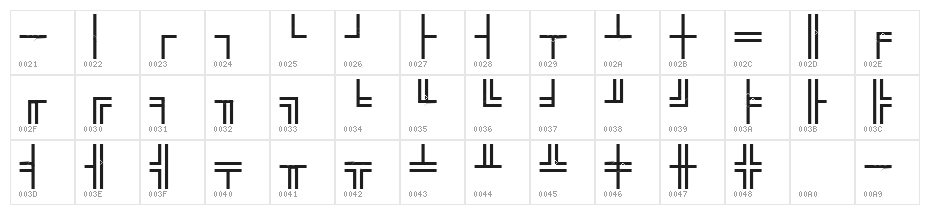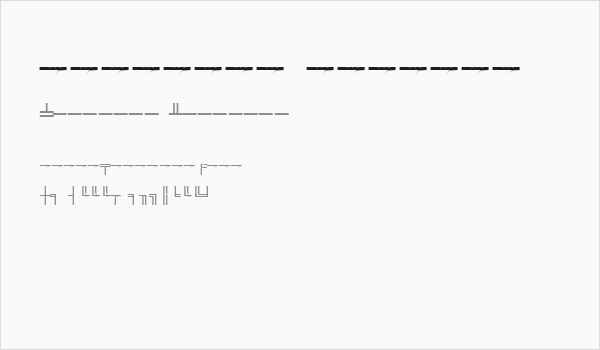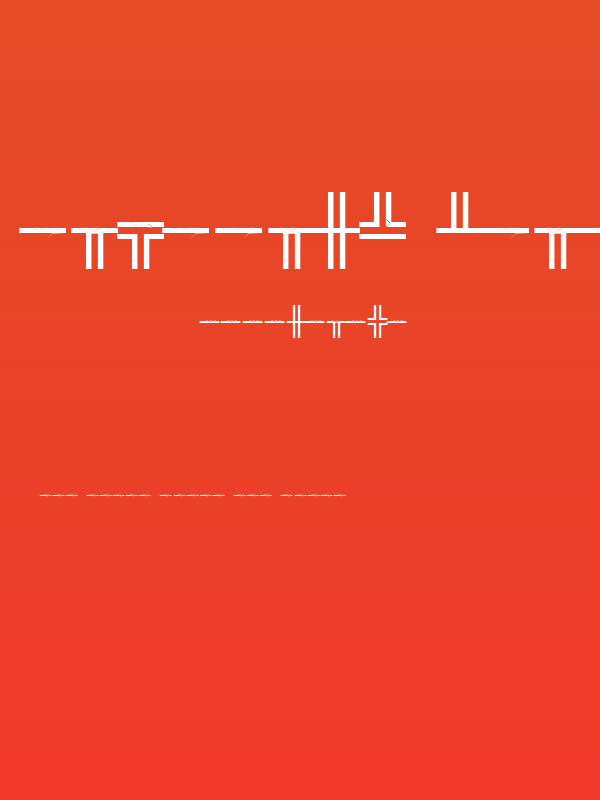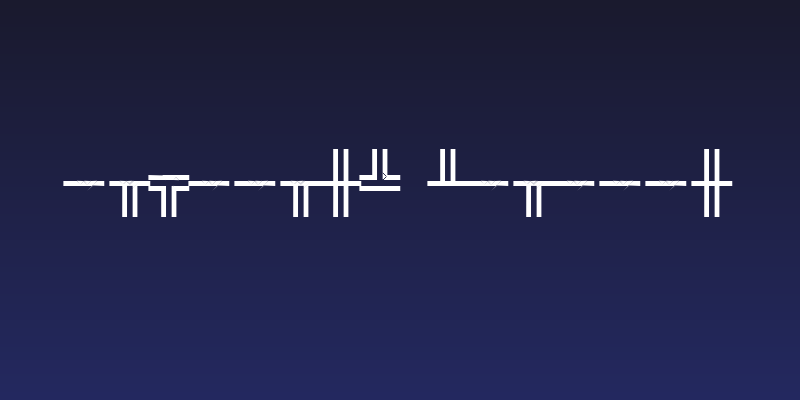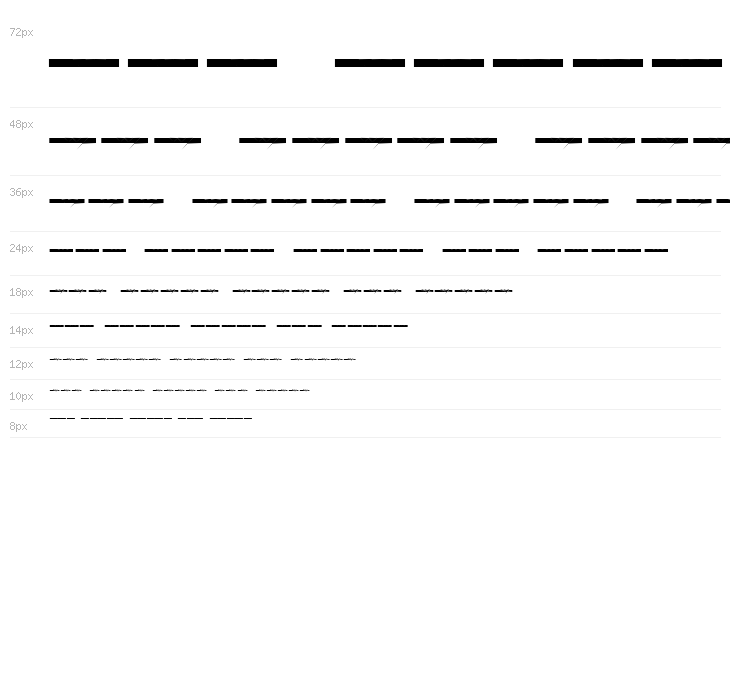
sabotage drawing Font
sabotage drawing Description
This design features a highly abstract and geometric style, characterized by its use of bold, straight lines and sharp angles. The characters are constructed from a series of horizontal and vertical lines, creating a grid-like appearance. This gives the design a modern, almost futuristic feel, reminiscent of architectural blueprints or digital schematics. The uniformity in line thickness and spacing contributes to a cohesive and structured look, while the absence of curves or embellishments emphasizes its minimalist aesthetic. This style is not suitable for traditional reading but serves as an artistic representation of text.
| Use Case | Art installations, conceptual design projects. |
| Proposed Projects | Ideal for artistic projects, digital art installations, or as a conceptual piece in modern design exhibitions. |